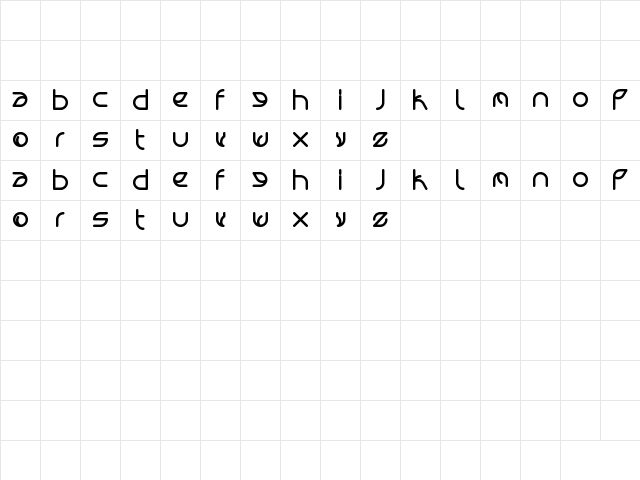
victory Regular
Design Context for victory Typeface
victory is a composed and adaptable typeface that performs quietly and consistently across a wide range of design contexts.